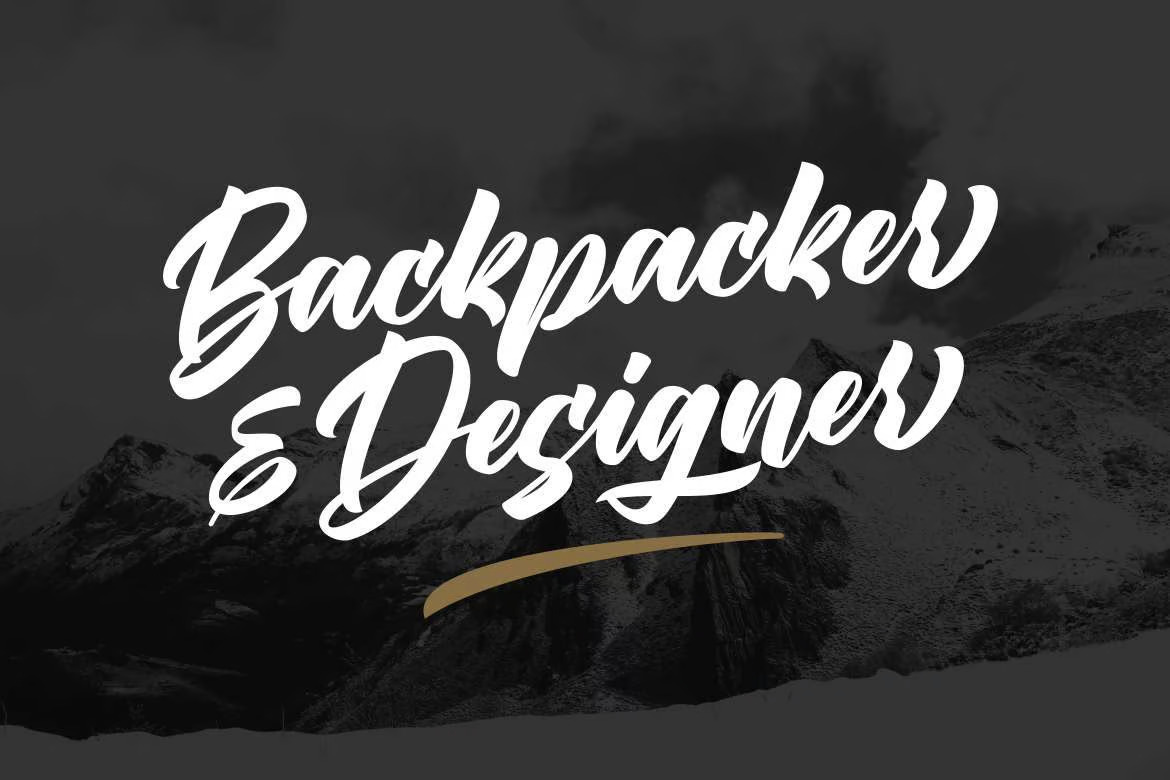
Ergibreak - Bold Script Font
A bold script font inspired by urban fashion. This font is great for your next creative project such as logos, badge, apparel, product packaging, headline, T-shirt/apparel, Poster, or anything which needs a Calligraphy.
It comes with uppercase, lowercase, numerals, punctuations and so many variations on each character include opentype alternates, and common ligatures to let you customize your designs.